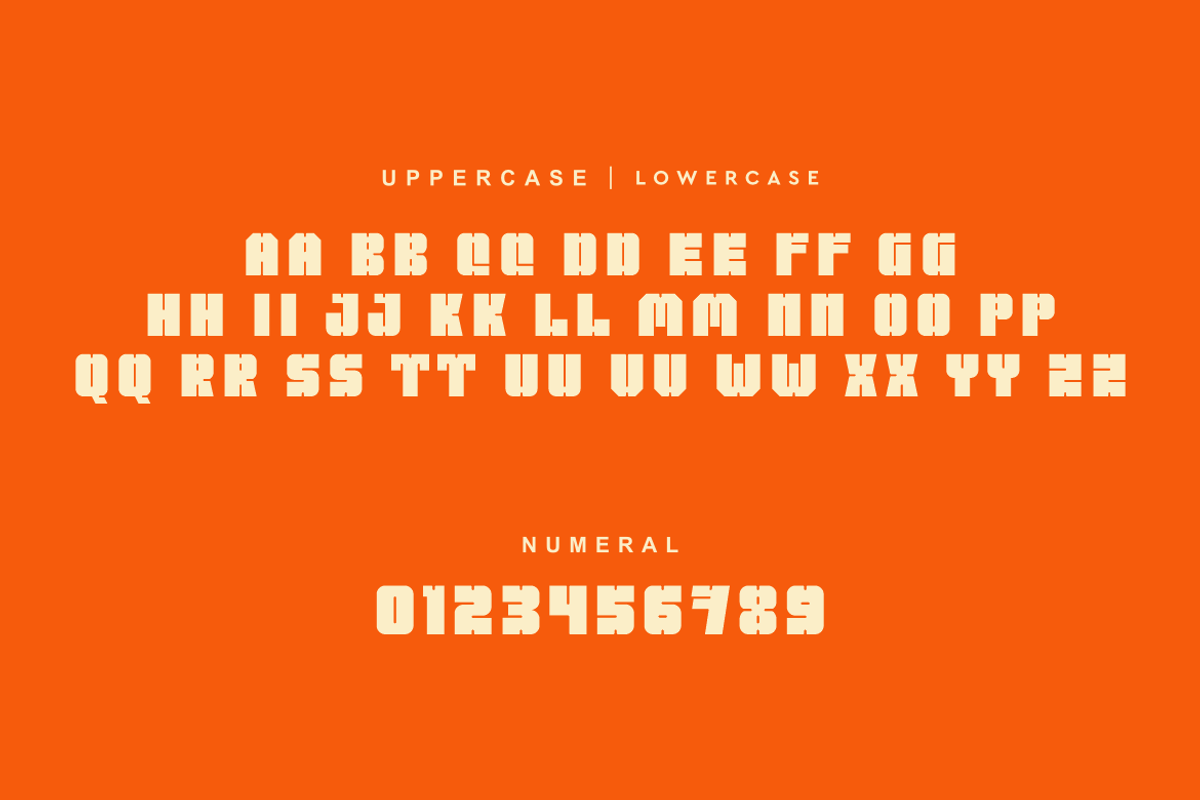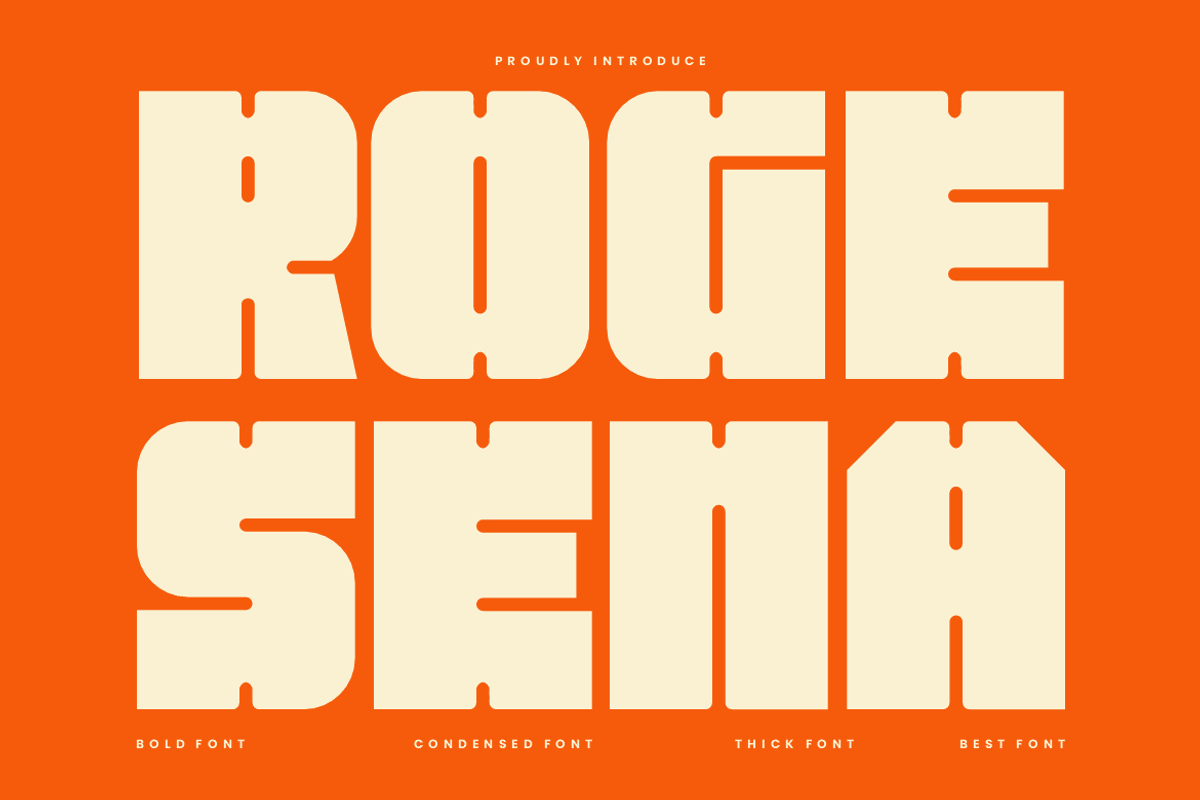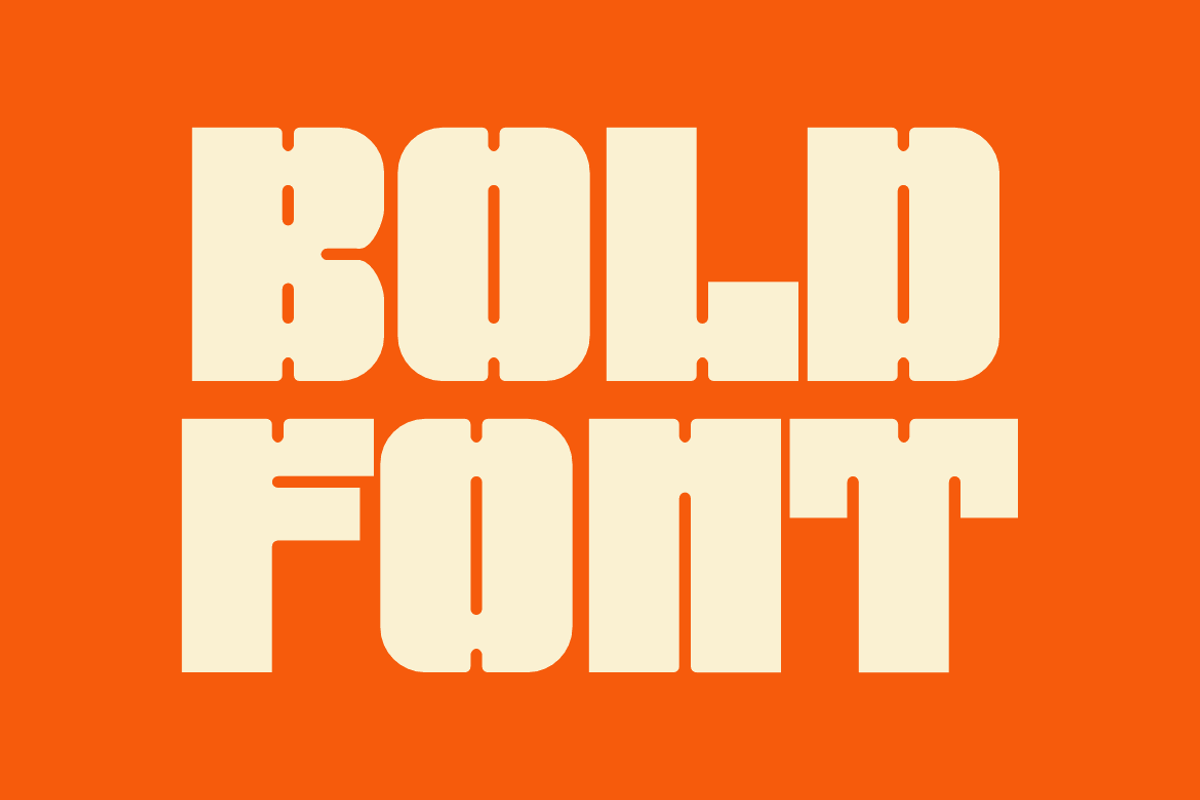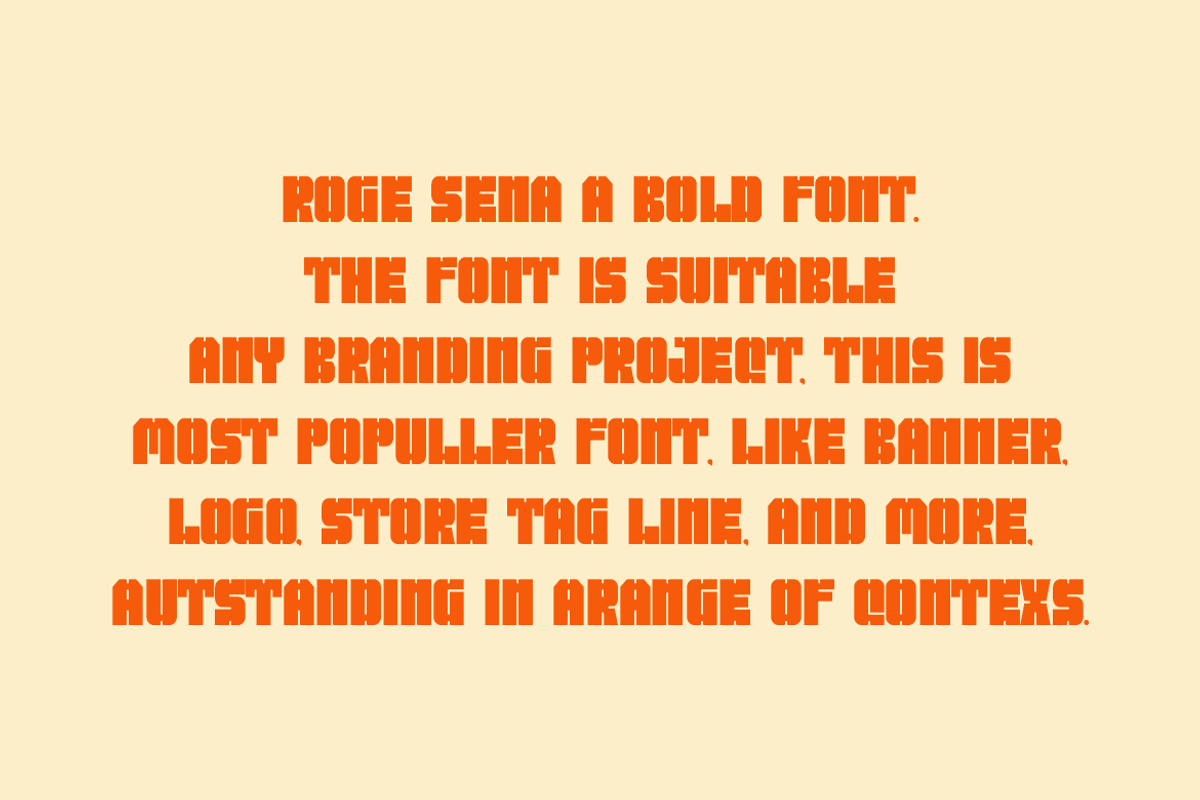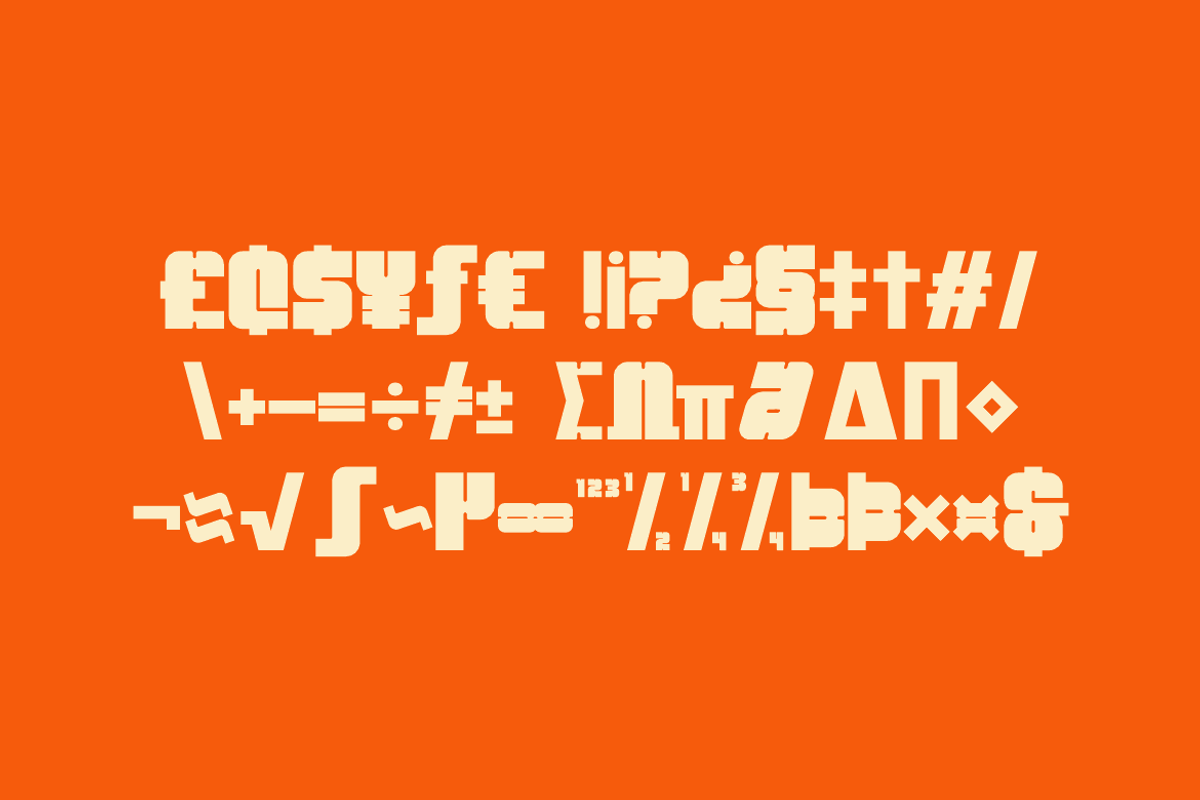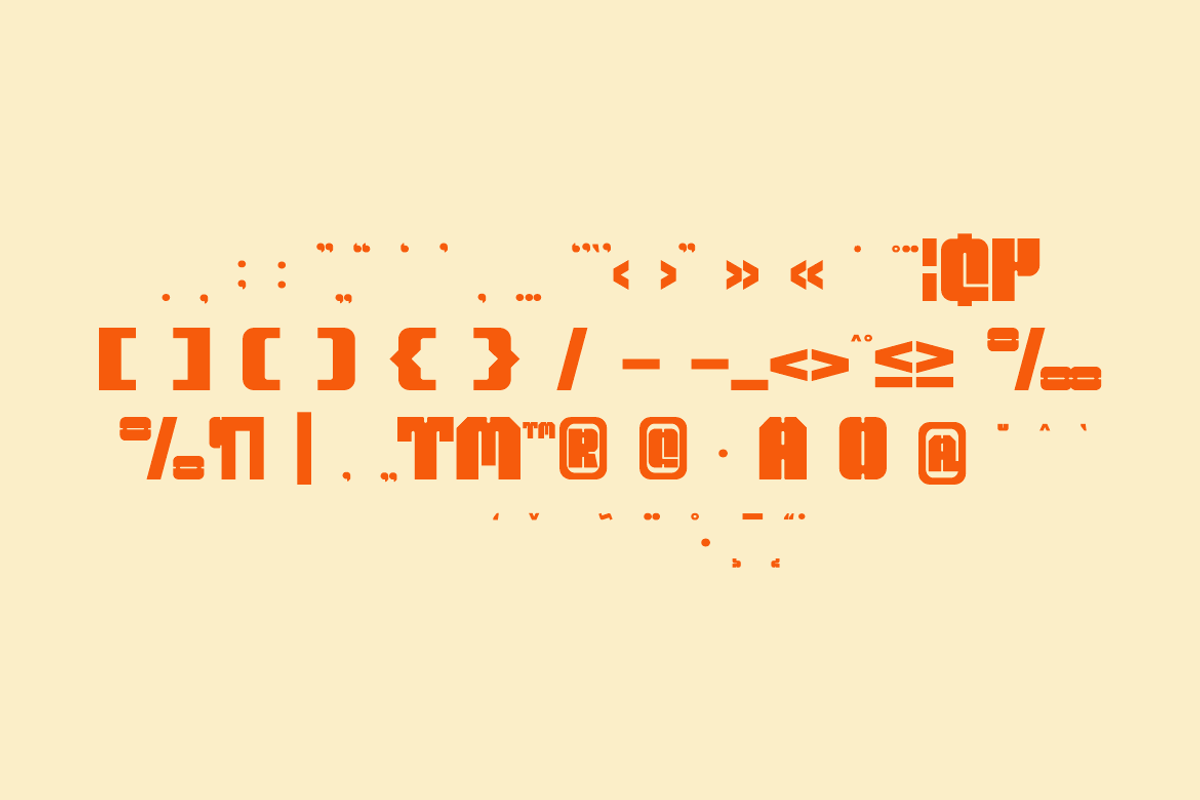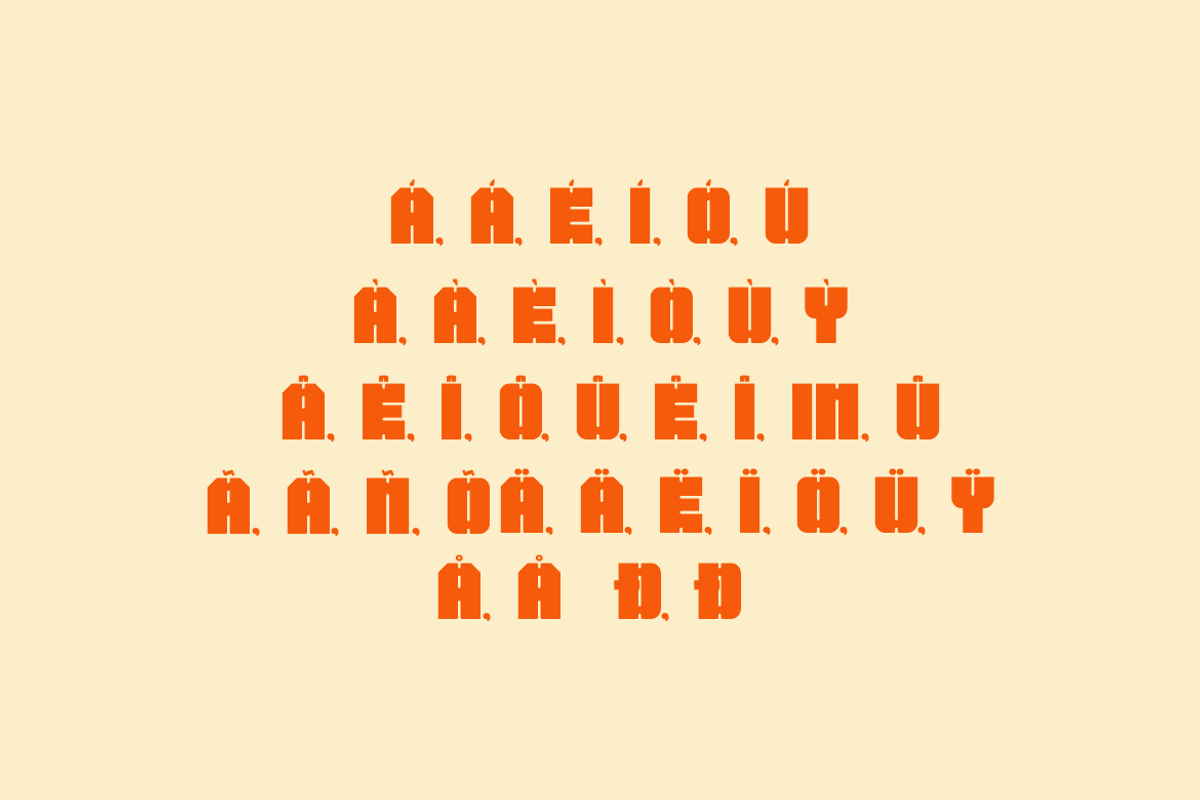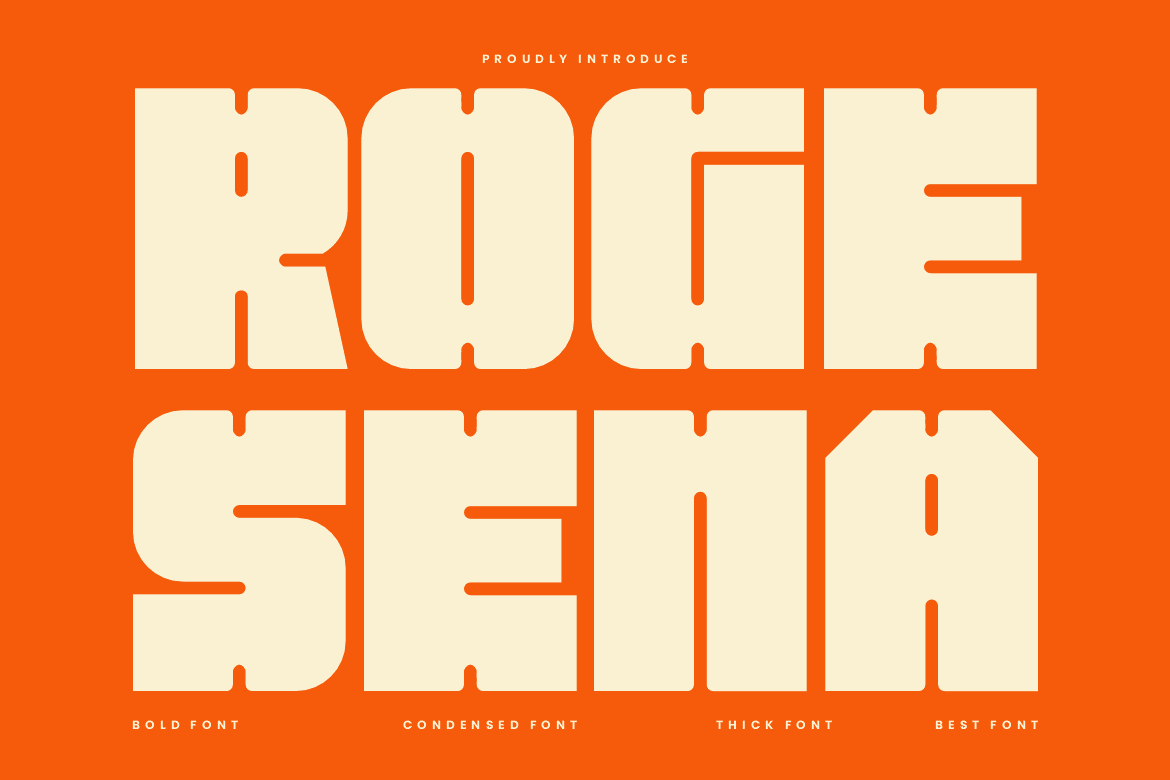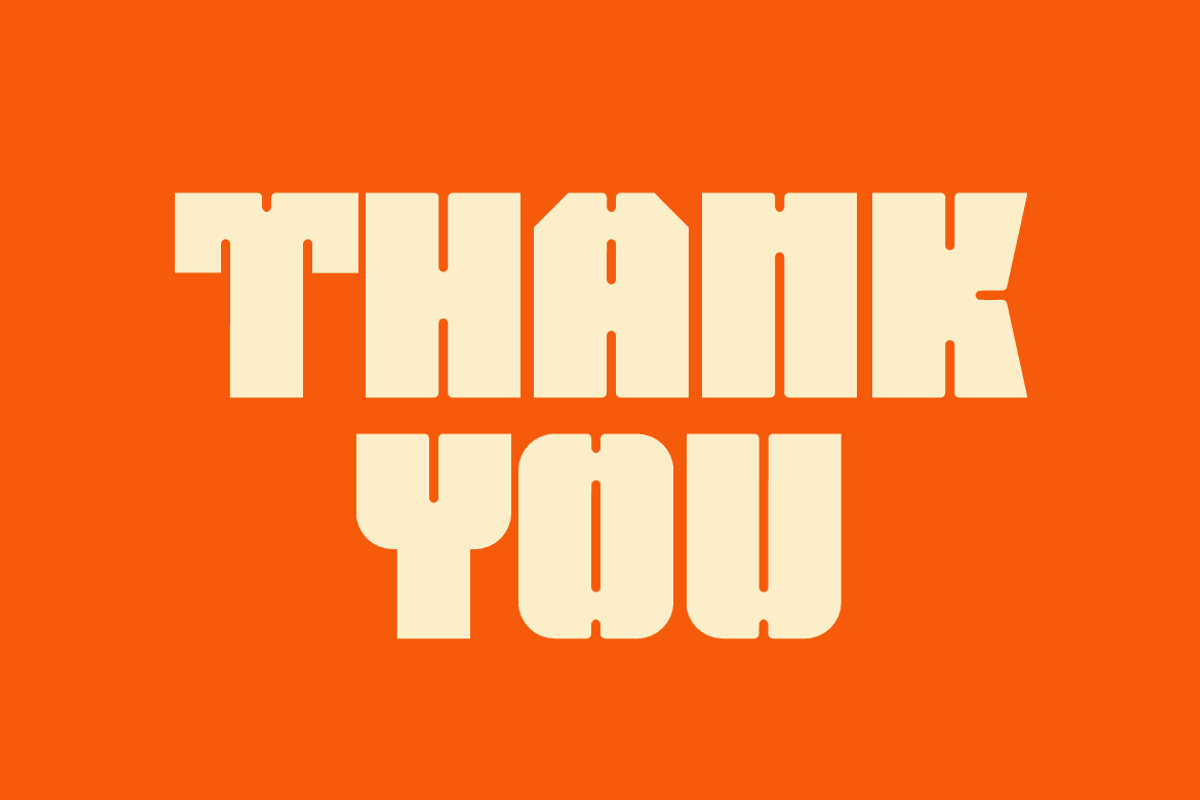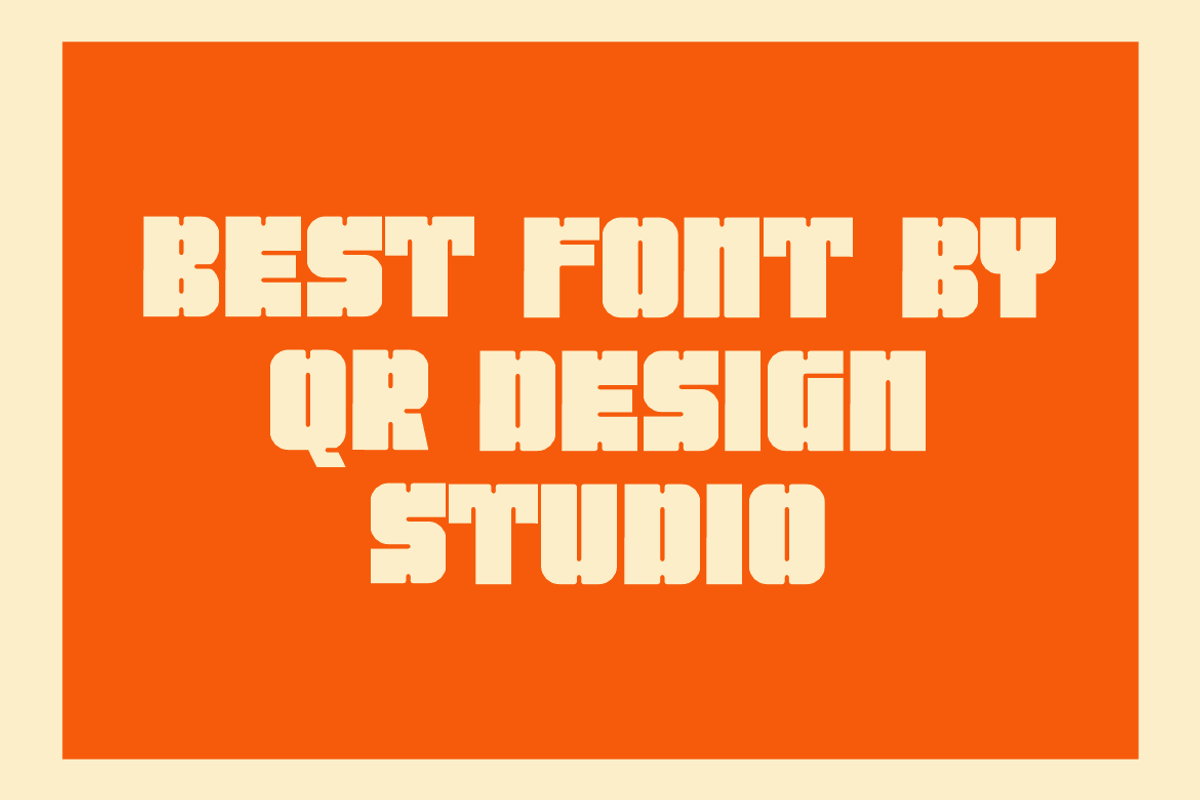
Roge Sena - Bold Sans Font
Roge Sena Font is a bold and authentic display font. The font is suitable for any branding project like poster, logo, sport, and many more. Outstanding in a wide range of contexts.